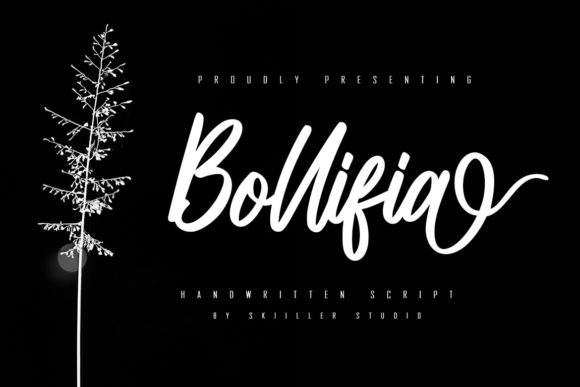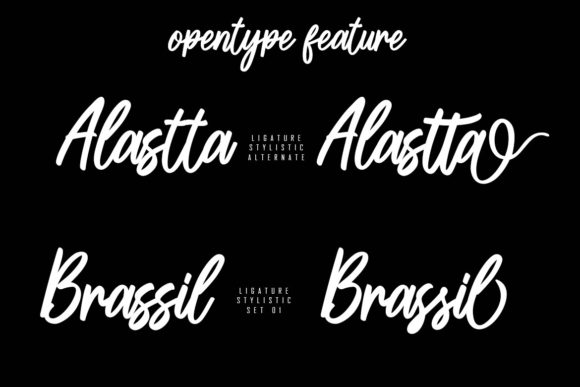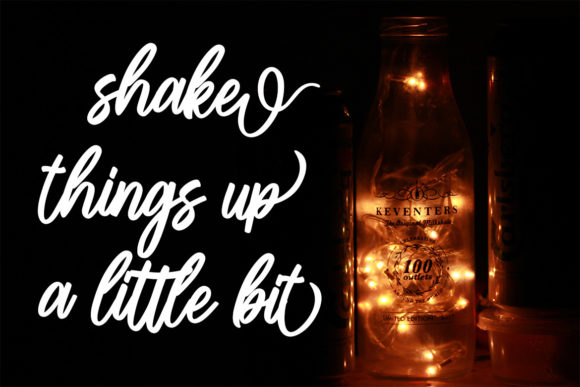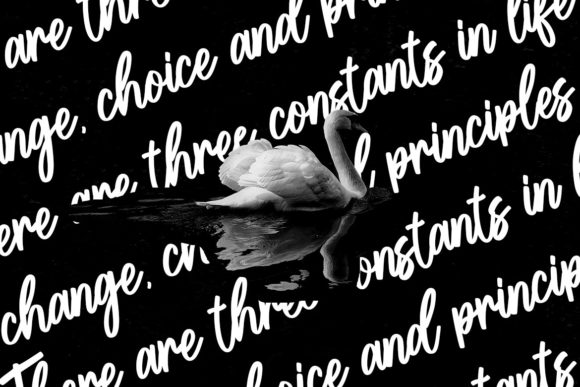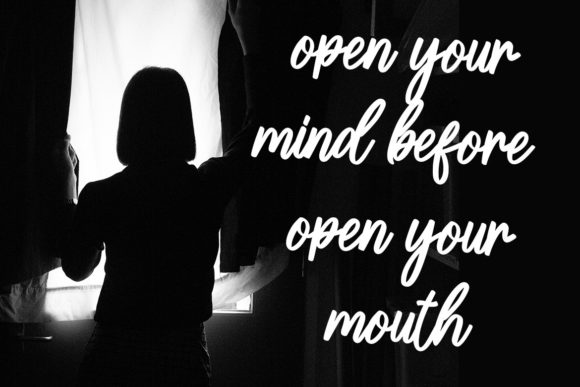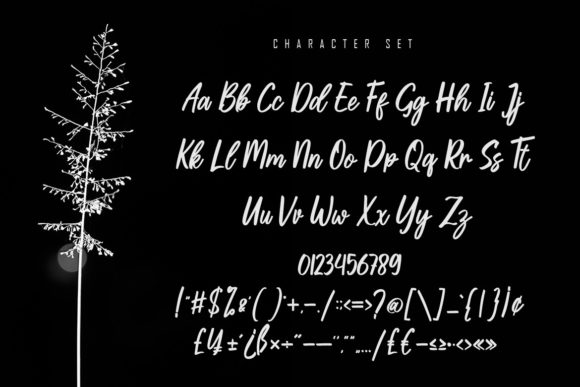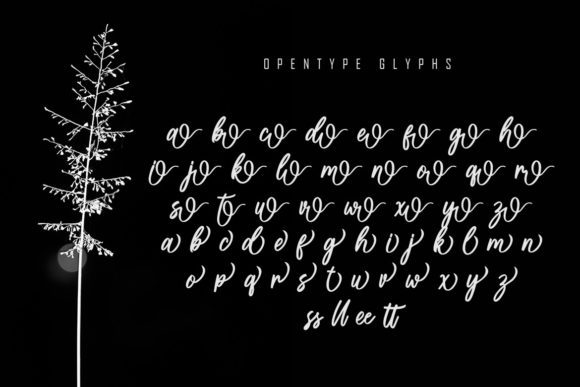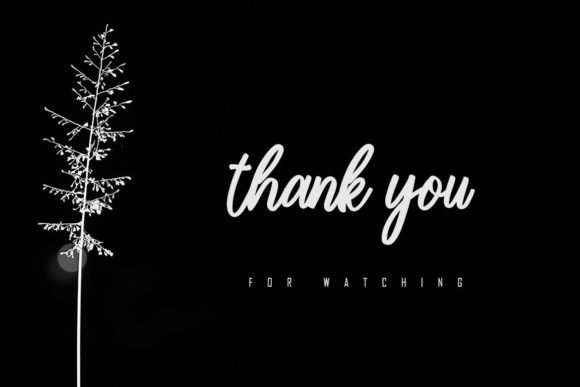
Bollifia Script Font
About Bollifia Script Font
Bollifia Script is a flowing handwritten font, described by an elegant touch, perfect for your favorite projects. Fall in love with its incredibly distinct and timeless style and use it to create spectacular designs!